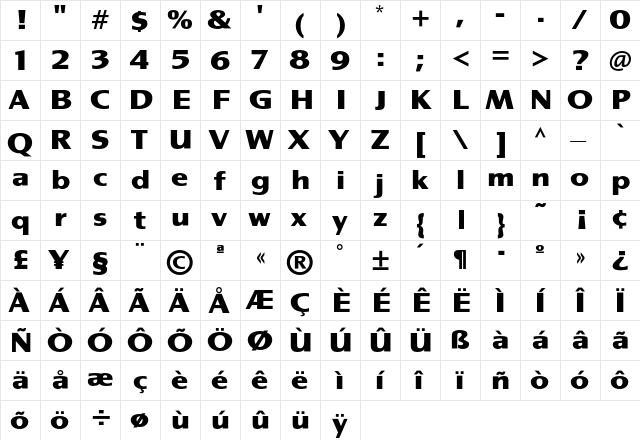
GrangeTF-ExtraBold Regular
Design Context for GrangeTF-ExtraBold Typeface
GrangeTF-ExtraBold is a composed and adaptable typeface that performs quietly and consistently across a wide range of design contexts. The heavy weight commands attention and anchors typographic hierarchies.